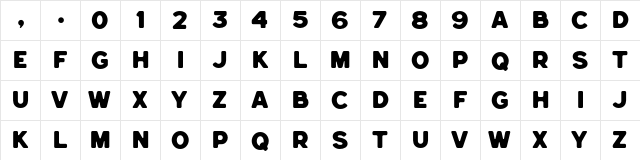
Hemisphers Bold Sans Regular
| Foundry | Runsell Studio |
| Designer | Edi Gunawan |
Design Context for Hemisphers Bold Sans Typeface
Hemisphers Bold Sans takes a measured approach to typography — its balanced proportions and neutral character make it a reliable workhorse for both digital and print work. The heavy weight commands attention and anchors typographic hierarchies.